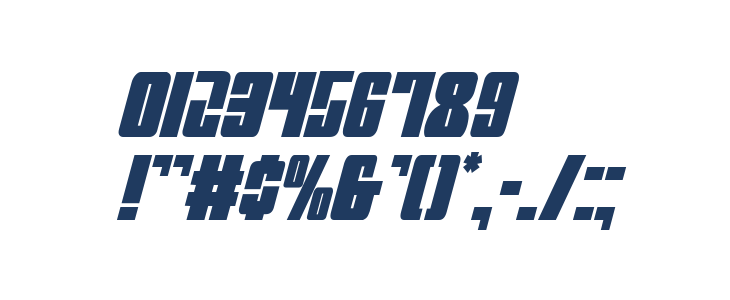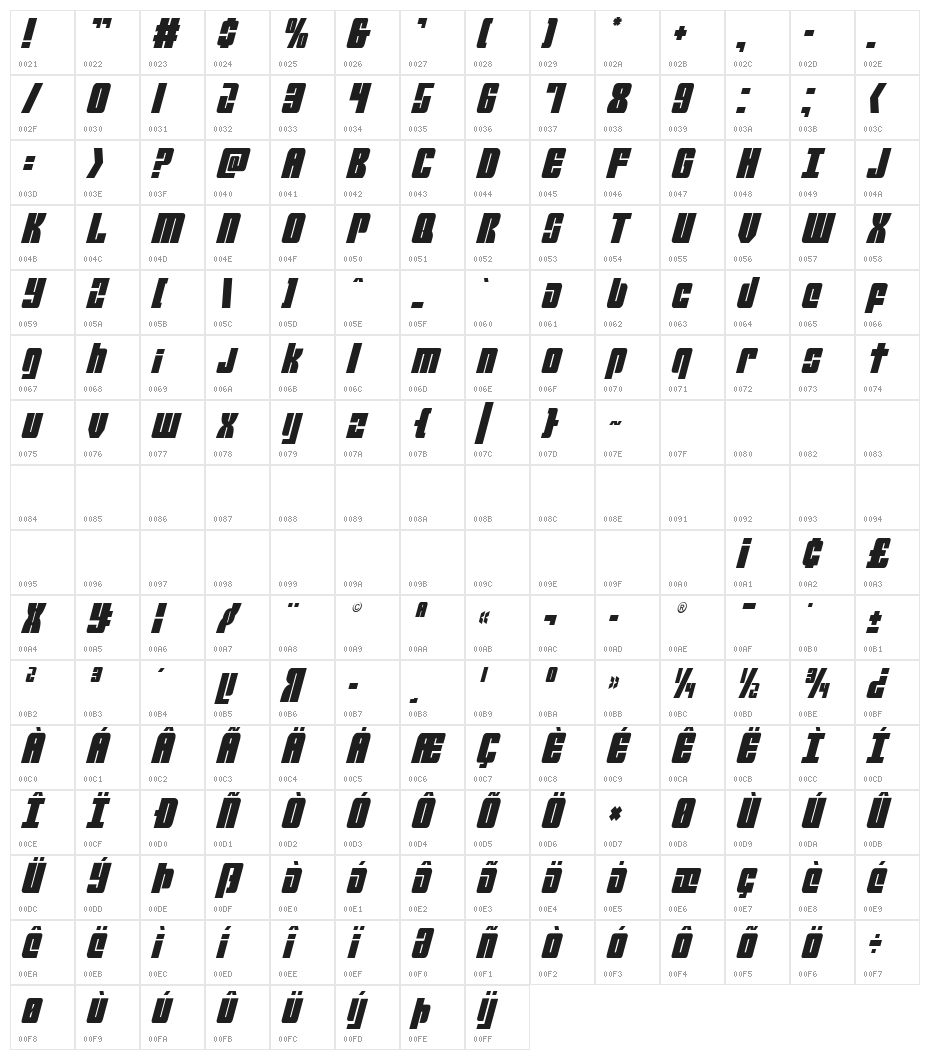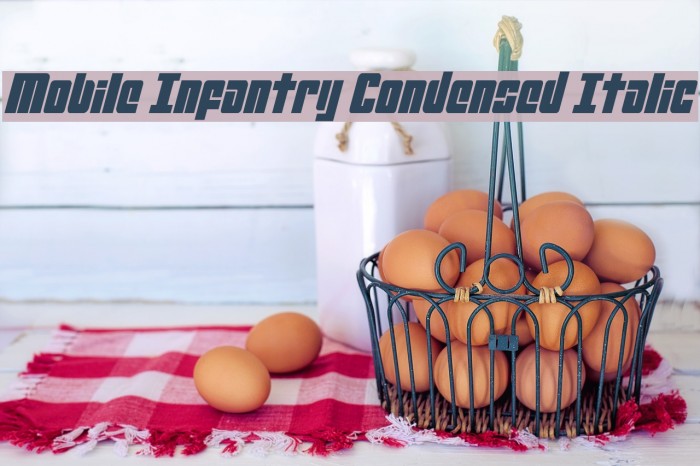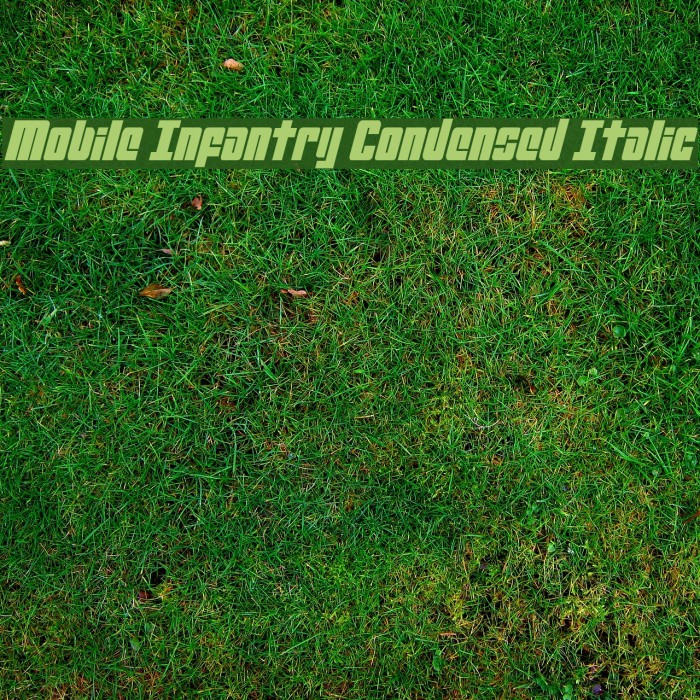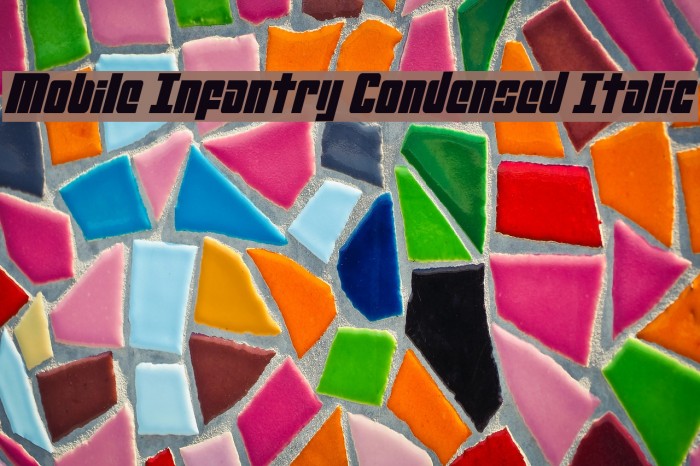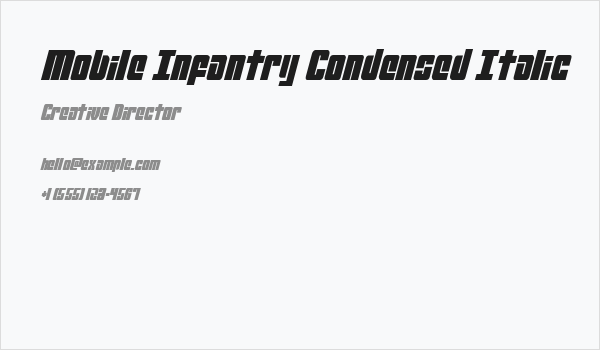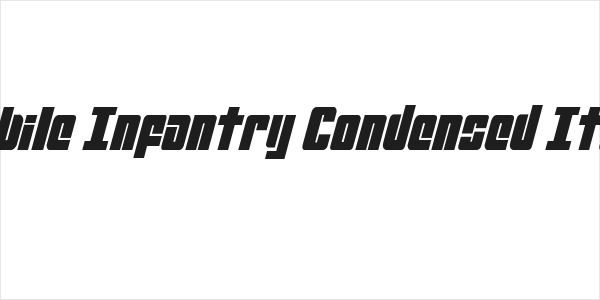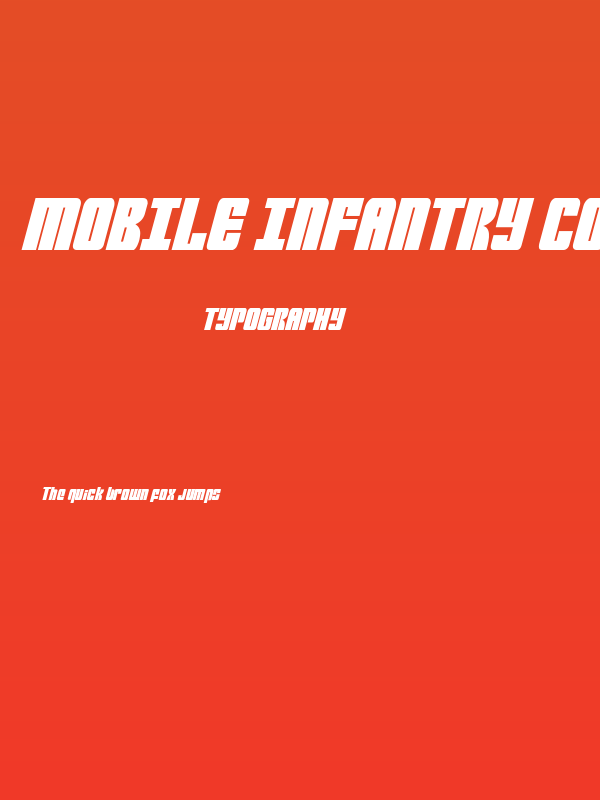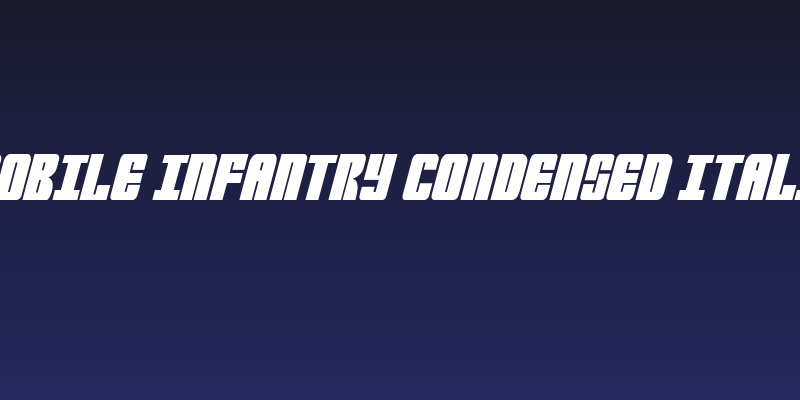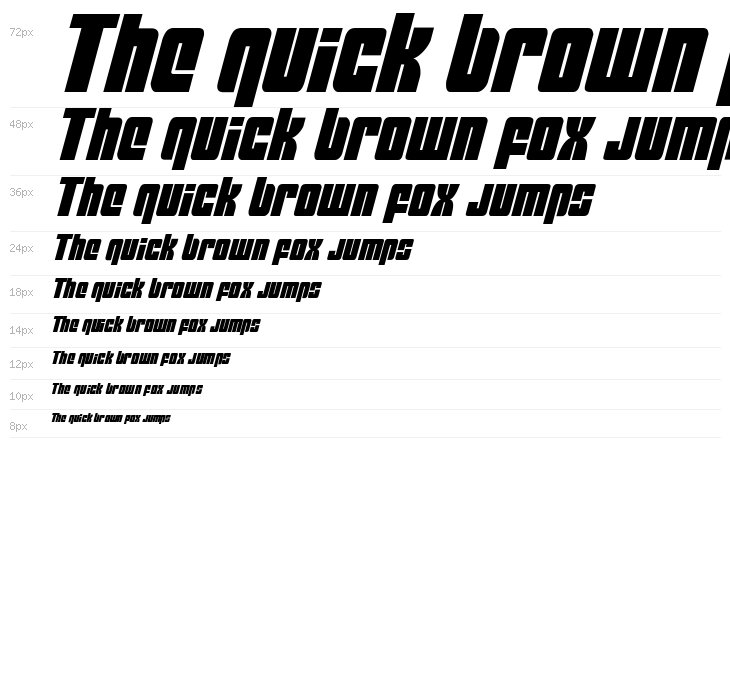
Mobile Infantry Condensed Italic Font
Mobile Infantry Condensed Italic Description
This font exhibits a bold and dynamic style with a distinctly modern and futuristic appearance. The characters are heavily condensed, giving them a compact and powerful look. The italic slant adds a sense of motion and urgency, making it ideal for attention-grabbing headlines or impactful designs. The sharp angles and clean lines contribute to its aggressive and assertive aesthetic. The uppercase and lowercase letters maintain a consistent style, while the numerals and special characters are designed to match the overall boldness and angularity of the font.